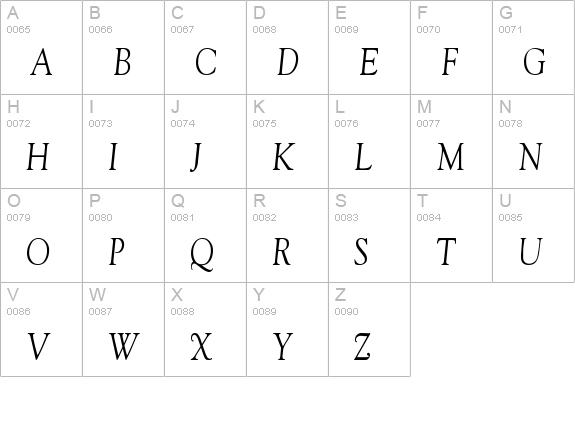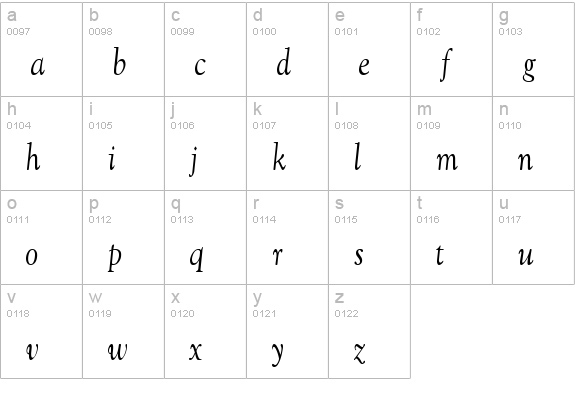
GoudyCnd-Norm 2 is a classic and elegant font that exudes sophistication and charm. With its timeless appeal and graceful curves, this font is perfect for adding a touch of refinement to any design project. The versatile nature of GoudyCnd-Norm 2 makes it suitable for a wide range of applications, from invitations and stationery to branding and packaging. What makes GoudyCnd-Norm 2 even more appealing is that it is available for free download at FontsMarket.com. This means that you can access this beautiful font without any cost, making it a valuable addition to your font library. Whether you are a designer looking for a new typeface to enhance your creations or an individual seeking to elevate your personal projects, GoudyCnd-Norm 2 is a fantastic choice that won't break the bank. Download it today and elevate your designs with this exquisite font.